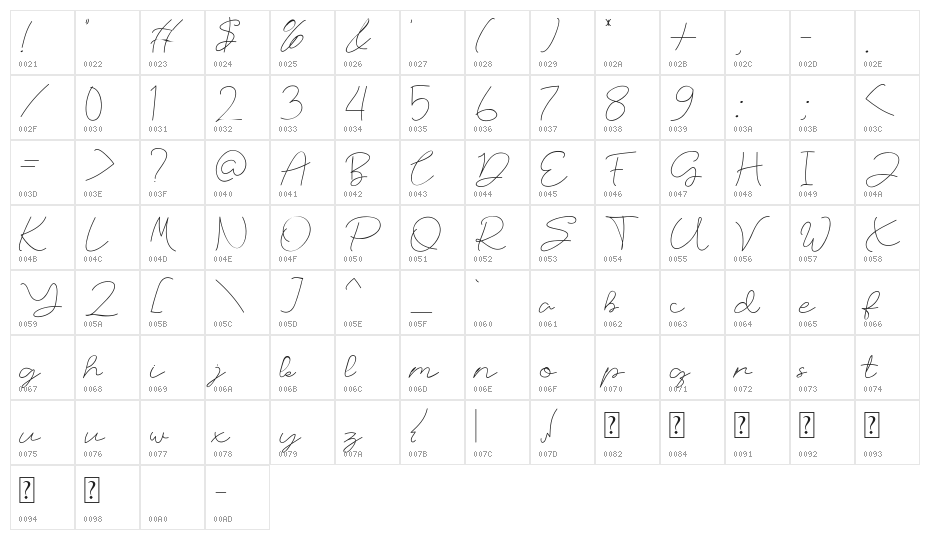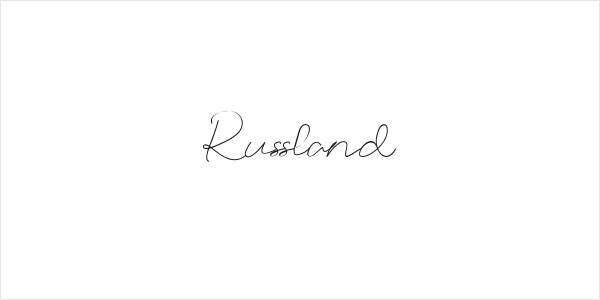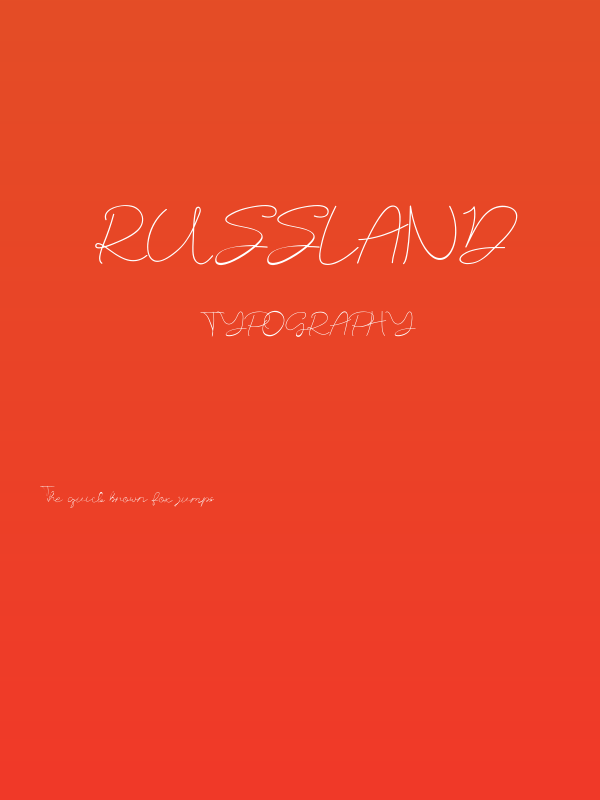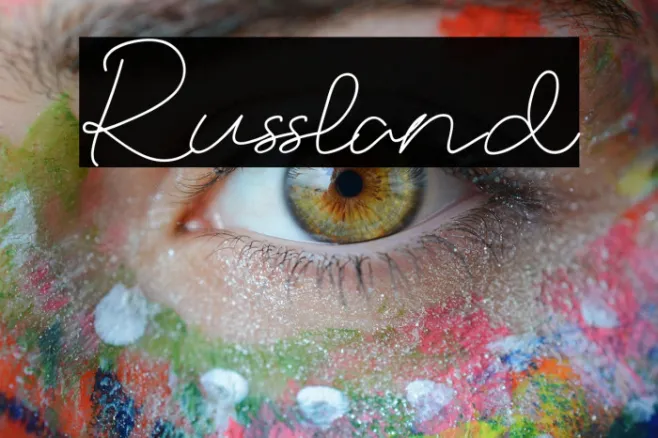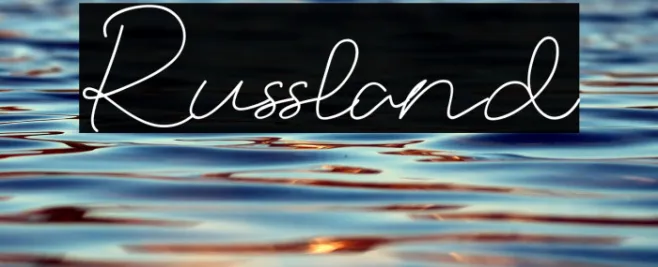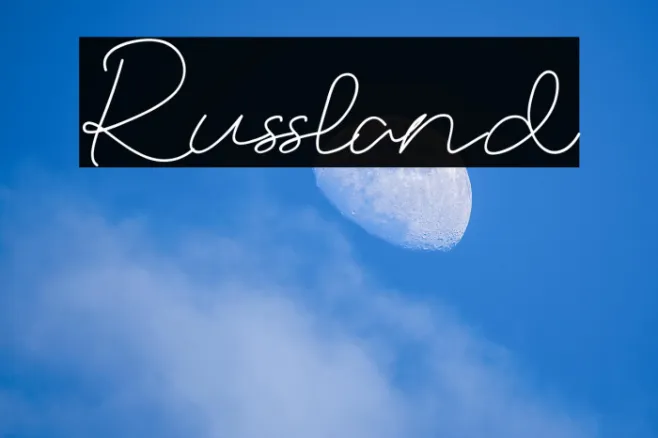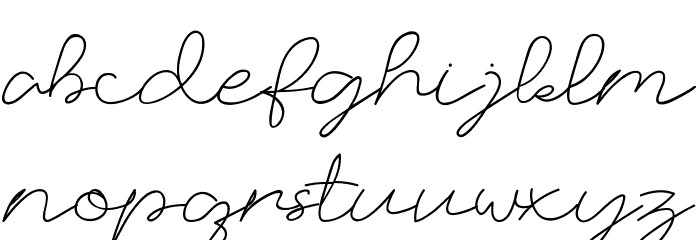
Russland Font
Russland Description
This font exhibits a flowing, cursive style with a handwritten appearance. The letters are connected, creating a seamless and elegant look. The strokes are thin and consistent, giving it a delicate and airy feel. The uppercase letters are slightly larger and more pronounced, while the lowercase letters maintain a smooth and continuous flow. Numbers and special characters are designed to match the overall cursive style, ensuring uniformity across all glyphs. This font is ideal for projects that require a personal touch or a sense of sophistication.
| Overall Style | Elegant, Personal, Sophisticated |
| Use Case | Logos, Invitations, Personal Correspondence |
| Proposed Projects | Ideal for wedding invitations, personal letters, greeting cards, and branding materials that require a personal or elegant touch. |